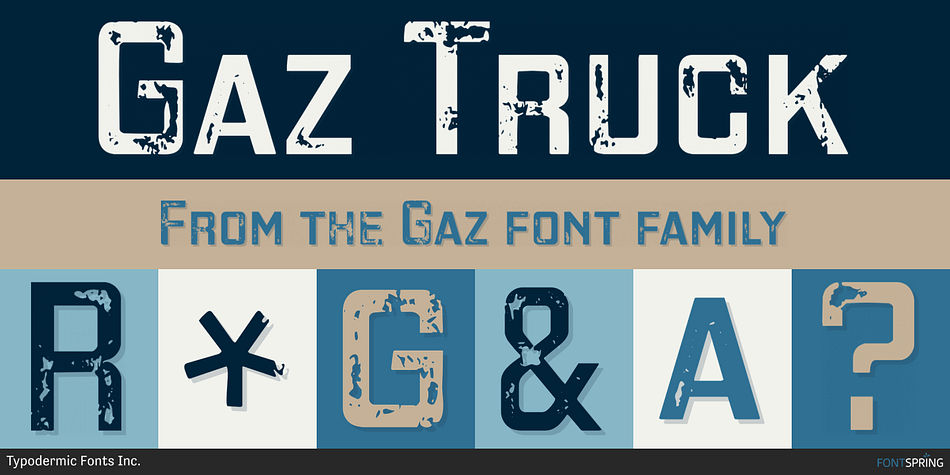
Gaz Truck
Gaz is a display sans, grunge and novelty font family. This typeface has nineteen styles and was published by Typodermic Fonts Inc.
Introducing Gaz, the square display typeface inspired by the gasoline station signs of the twentieth century. Sign painters used to refer to this type of lettering as “stovepipe”, due to its sharp angles and rounded corners. Gaz’s unique squareness exudes a vintage industrial charm, while still maintaining a friendly, almost organic feel.
Gaz is available in seven weights and italics, giving you the flexibility to create a wide range of designs. But that’s not all. Gaz also comes in five greasy effect styles, perfect for creating that worn, grungy look. The ligatures contained in these styles are automatically substituted in most applications, projecting a more natural and authentic tone.
Whether you’re creating a bold poster, an eye-catching logo, or a sleek website design, Gaz is the perfect choice for adding a touch of vintage industrial style. Try Gaz today and bring a piece of the past into your designs.